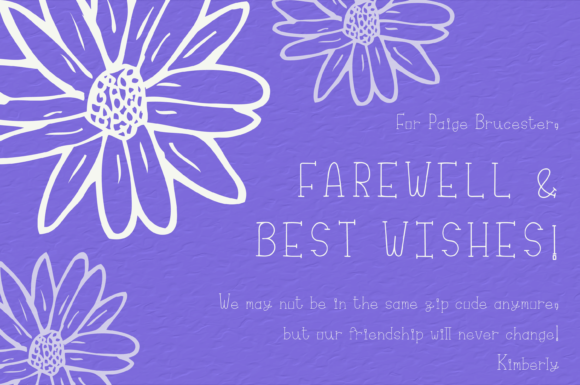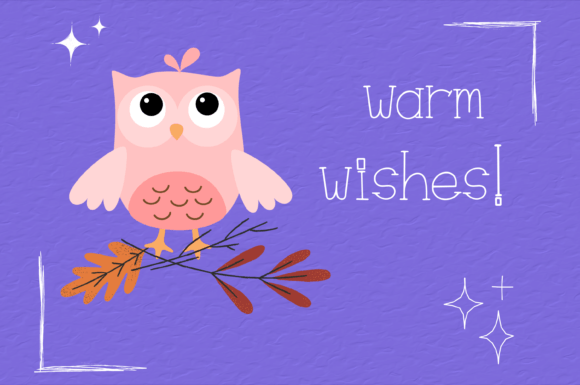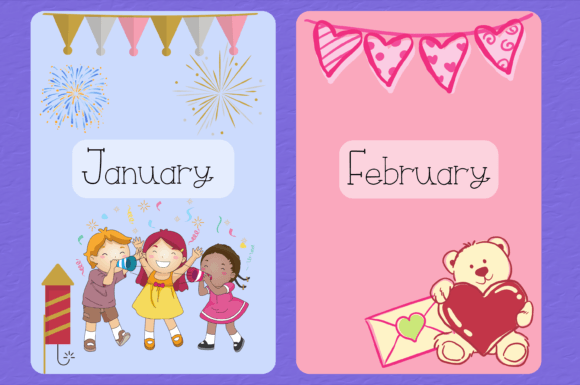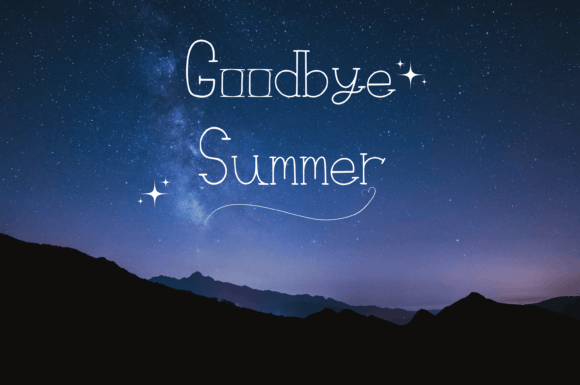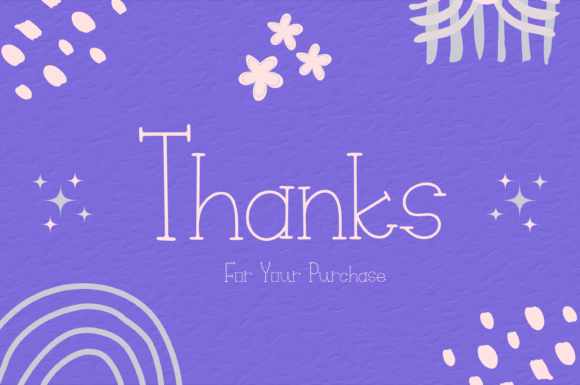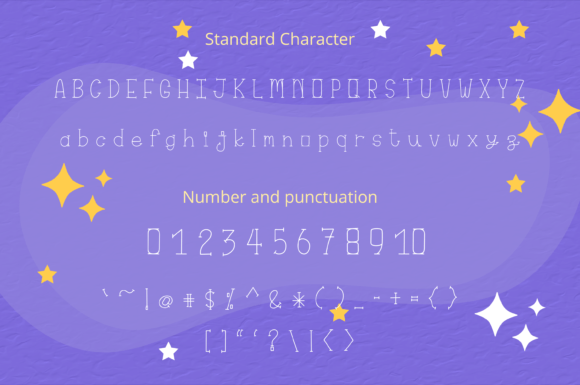
Introduction to Sapphire Lovato Font
Do you ever find yourself stuck in a design rut, struggling to bring your creative project to life? You’re browsing through your design resources, searching for that perfect font to give your work a unique touch. Then, it hits you – the perfect font that makes your design stand out from the crowd. For many designers, this moment of inspiration is a game-changer.
Today, we’re excited to introduce you to the Sapphire Lovato Font, a high-quality serif font that’s sure to elevate your designs. With its whimsical and clean design, this font is perfect for a wide range of creative projects, from branding to editorial work. And the best part? It’s available for free download, making it an accessible design resource for designers of all levels.
Whether you’re working on a complex design project or simply looking for a new font to add to your collection, the Sapphire Lovato Font is a valuable addition to any designer’s toolkit. Its transparent background and high-quality design make it a versatile choice for any creative project.
Sapphire Lovato Font
- High-quality font for creative projects, designed with a unique and elegant style.
- Features a transparent background, allowing for seamless integration into any design project.
- Perfect for designers, artists, and writers looking for a sophisticated and stylish font to elevate their creative project.
Honest Review: Sapphire Lovato Font
I recently stumbled upon the Sapphire Lovato Font, and I was curious to see how it would perform in my creative project. As a designer, I’m always on the lookout for high-quality design resources to enhance my work.
One of the things that caught my attention about the Sapphire Lovato Font was its sleek and modern aesthetic. The font’s clean lines and elegant curves make it perfect for creating a sophisticated and professional look.
- ✨ Perfect for creating a modern and elegant look in designs, logos, and typography
- ⚠️ Limited font styles and weights, which might not be ideal for complex designs
- ⚠️ May not be suitable for designs that require a lot of bold or condensed typography
Overall, I was impressed with the Sapphire Lovato Font’s performance in my creative project. While it has some limitations, its high-quality design and transparent background make it a great option for designers looking for a modern and elegant font.
Sapphire Lovato Font
To get the most out of the Sapphire Lovato Font, use it in conjunction with a transparent background to create a high-quality design resource. This font is perfect for creative projects that require a touch of elegance and sophistication.